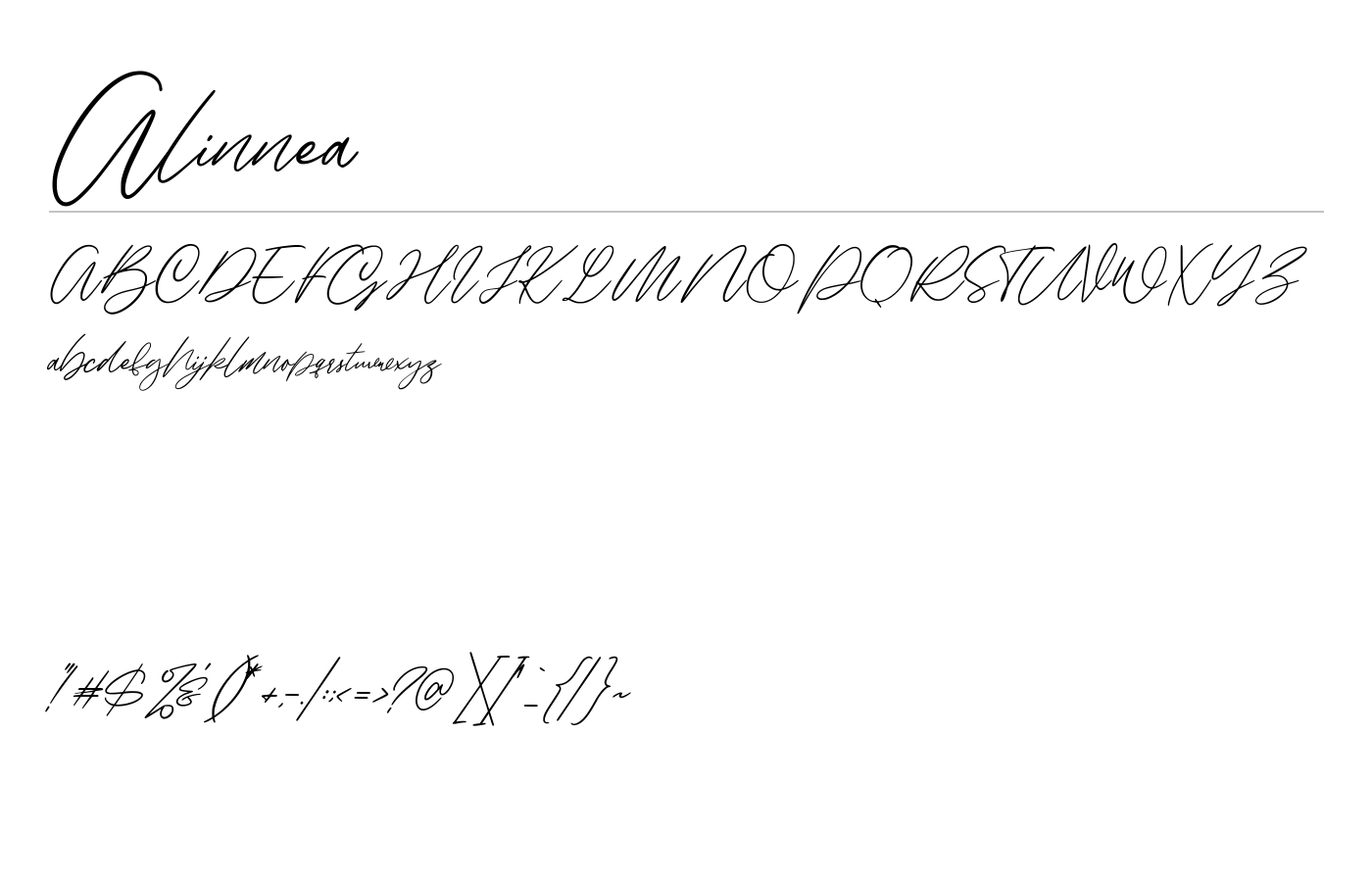
Alinnea is an elegant, thin script font with a delicate, handwritten feel characterized by its flowing, connected letterforms and subtle slant. Its fine lines and cursive style create a sophisticated and graceful atmosphere, making it ideal for wedding invitations, personal branding, and luxury packaging where a touch of refinement and intimacy is desired. This font works best in large sizes for headlines or logos, as its light strokes and intricate details may lose clarity in smaller text.
Alinnea Font
About Alinnea Font
| Font family | Alinnea Font |